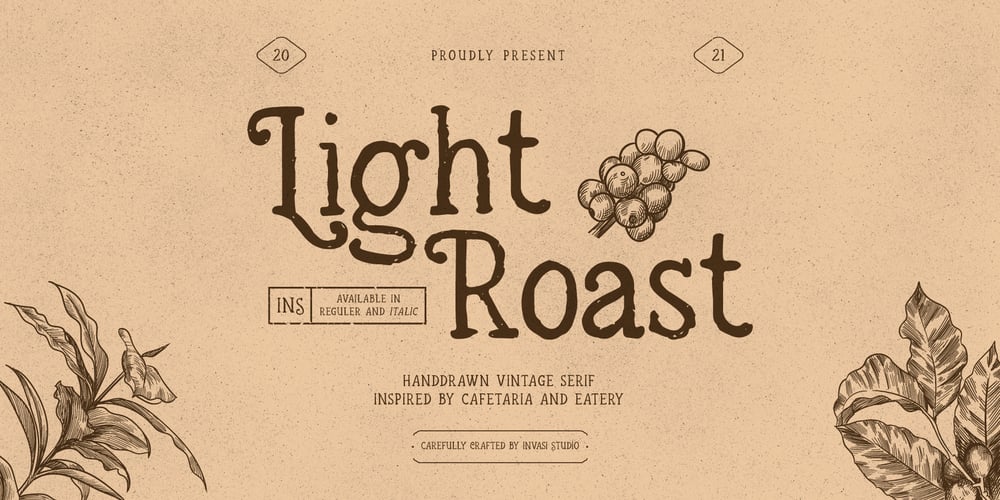
Light Roast Font Family was designed by Gha Arizal and published by Invasi Studio. Light Roast contains 2 styles and family package options. The light Roast font is a fun, friendly, and hand-drawn vintage style. Inspired by the cafeteria and eatery vintage era, this font is available in regular and italic font. It can easily be matched to an incredibly large set of projects, so add it to your creative ideas and notice how it makes them stand out! This font is perfect for headings, flyers, greeting cards, product packaging, book cover, printed quotes, logotype, album covers.